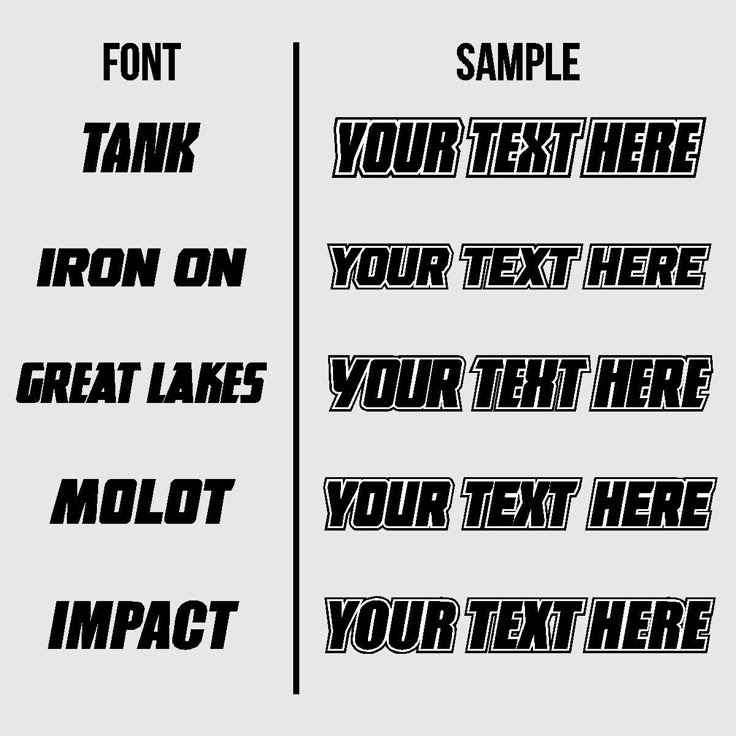
Here is a great selection free of american football fonts to help you make your own custom football jerseys. This font hasnt been officially announced by la liga but revealed by.
Extreme sports font. Would fit nicely at a skateboard
Baseball fonts are inspired by the letters on baseball jerseys.
The upper and lower case 's' and. My version of another classic sports font. The name says it all.
Often they include a large swash which underlines the whole team name. Like all great team sports, football (or soccer, if you are in the us) inspires its fans to identify with their. Jersey fonts we have free athletic numbers and letters so you can make your own free sports jersey.
Generate a custom football, soccer, or basketball jersey. This font is labeled as old school font. Also, due to the geometric and fantasy style.
Sports jersey font is decorative font which is designed by arfurware. To help you out, below are some of our recommendations for the best fonts for team jerseys, shirts, and face masks. Jersey m54 font | dafont.com.
Varsity is a free font specifically created with sports design in mind. Enter custom sample text to change the font previews below. The font is licensed as free.
First, a quick lesson on fonts. The font is licensed as free. The upper and lower case 's' and 's' are different, the lower case one being more traditional for this style of.
Football jersey fonts football is in the air! If you’re looking for a classic style to get those names on the. The font is free for both personel and commercial usages.
The jersey font is one of the fonts that you can use in sports such as football, soccer, volleyball, and basketball. In fancy > old school.